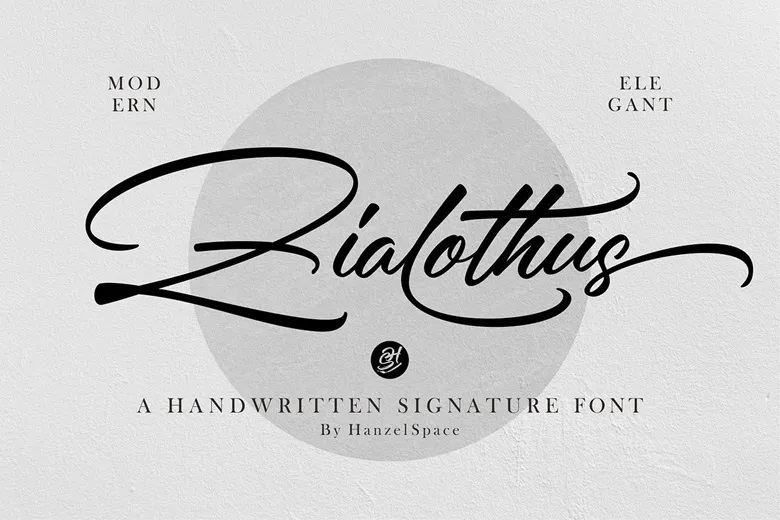
Zialothus Font
Here we have a rather cute handwritten signature font named “Zialothus” to make your designs light up. ,Created by hand, this typeface has alternative swashes in order to resemble writings that are made naturally.
Your design will appear with the required work as you input 26 swashes. If you need a logo, any quote, branding, card, and this typeface is just what you need.
Zialothus Signature Script Font